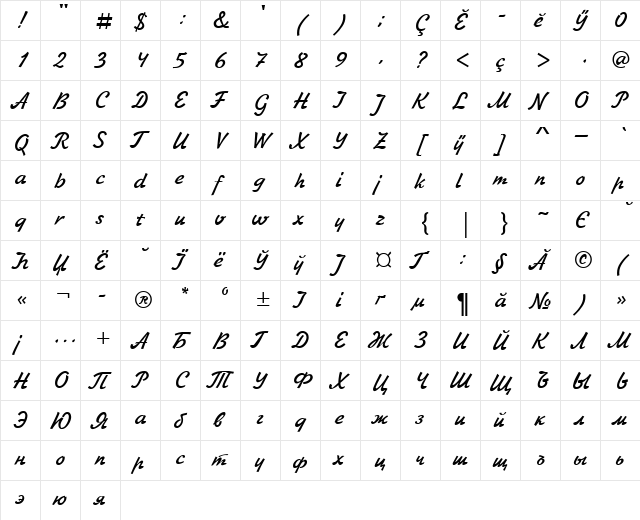
Jikharev Chv CNP Regular
Design Context for Jikharev Chv CNP Typeface
Jikharev Chv CNP takes a measured approach to typography — its balanced proportions and neutral character make it a reliable workhorse for both digital and print work.